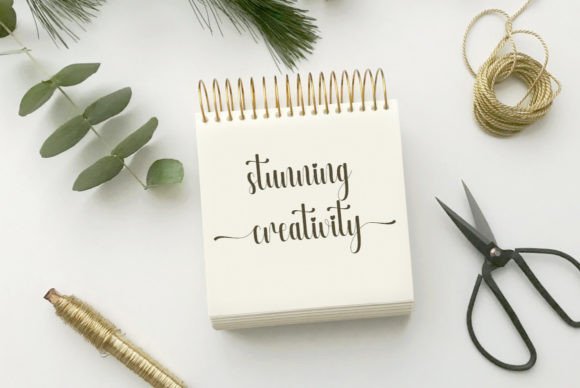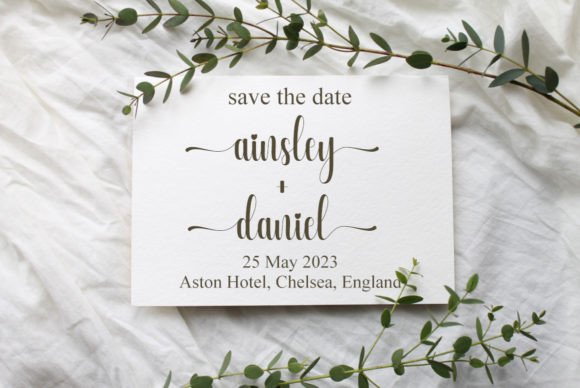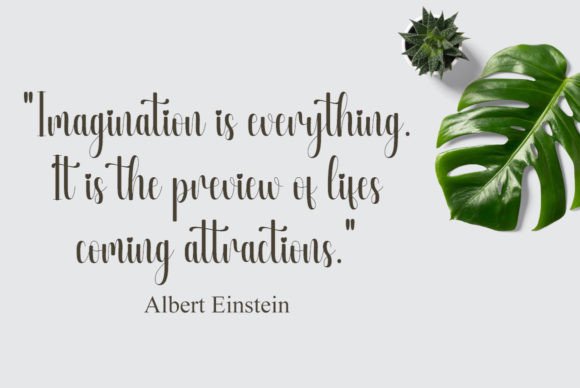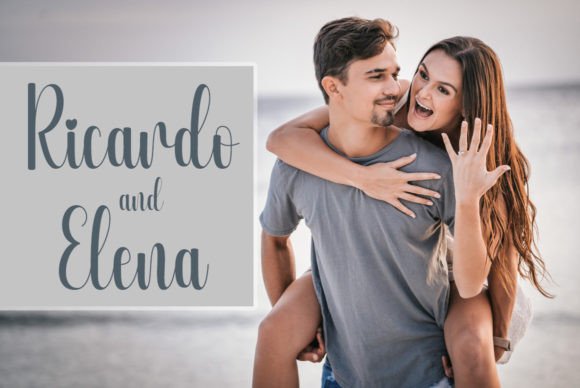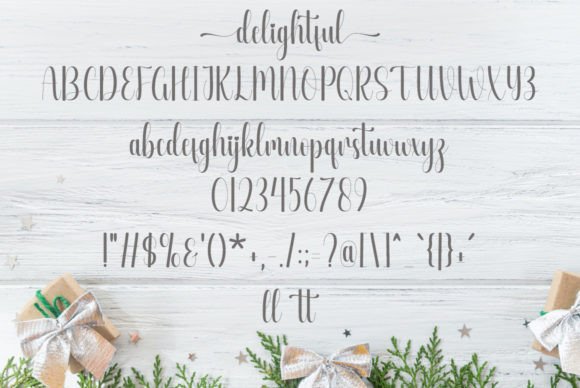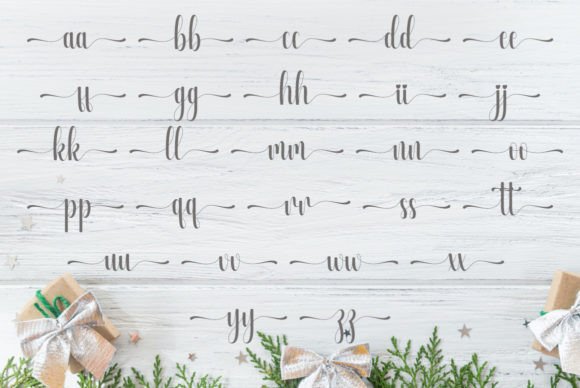
Discover the Delightful Font: Your New Go-To Handwritten Font
Are you tired of using the same old fonts for your digital designs, presentations, and craft projects? Look no further! Introducing the Delightful Font, a simple and friendly handwritten font that’s perfect for any occasion. In this article, we’ll dive into the features and benefits of this amazing font, and explore how it can become your new favorite go-to font.
What is Delightful Font?
Delightful Font is a beautiful, handwritten font designed to add a personal touch to your designs. Its simple and friendly style makes it perfect for a wide range of projects, from digital designs and presentations to crafts and greeting cards. Whether you’re a designer, crafter, or DIY enthusiast, this font is sure to delight.
Key Features of Delightful Font
- Simple and Friendly Style: Delightful Font has a clean and approachable design that’s easy to read and looks great in any context.
- PUA Encoded: This font is PUA (Private Use Area) encoded, which means you can access all the glyphs and alternates with ease. This feature makes it easy to customize your text and add unique touches to your designs.
- Versatile: Delightful Font is perfect for a wide range of projects, including digital designs, presentations, crafts, and greeting cards.
Why You’ll Love Delightful Font
So, what sets Delightful Font apart from other fonts? Here are just a few reasons why you’ll love this amazing font:
- Highly Customizable: With PUA encoding, you can access a wide range of glyphs and alternates, making it easy to customize your text and add unique touches to your designs.
- Perfect for Crafts and DIY Projects: Delightful Font is a great choice for crafters and DIY enthusiasts who want to add a personal touch to their projects. Use it to create beautiful greeting cards, scrapbook pages, and more.
How to Use Delightful Font
Using Delightful Font is easy! Here are a few tips to get you started:
- Digital Designs: Use Delightful Font to add a personal touch to your digital designs, such as social media graphics, blog posts, and website headers.
- Presentations: Add a friendly and approachable style to your presentations with Delightful Font. It’s perfect for titles, headings, and body text.
- Crafts and DIY Projects: Use Delightful Font to create beautiful greeting cards, scrapbook pages, and other craft projects.
Tips and Tricks for Getting the Most Out of Delightful Font
Here are a few tips and tricks to help you get the most out of Delightful Font:
- Experiment with Different Sizes and Styles: Delightful Font looks great in a variety of sizes and styles. Experiment with different sizes and styles to find the one that works best for your project.
- Combine with Other Fonts: Delightful Font pairs well with other fonts. Try combining it with a bold font for headings and a clean font for body text.
- Use the Glyphs and Alternates: Take advantage of the PUA encoding to access a wide range of glyphs and alternates. This will help you add unique touches to your designs and make them stand out.
In conclusion, Delightful Font is a simple and friendly handwritten font that’s perfect for any occasion. Its PUA encoding makes it easy to customize and use, and its versatile style makes it suitable for a wide range of projects. Whether you’re a designer, crafter, or DIY enthusiast, Delightful Font is sure to become your new go-to font. So why wait? Download Delightful Font today and start creating beautiful designs that delight!